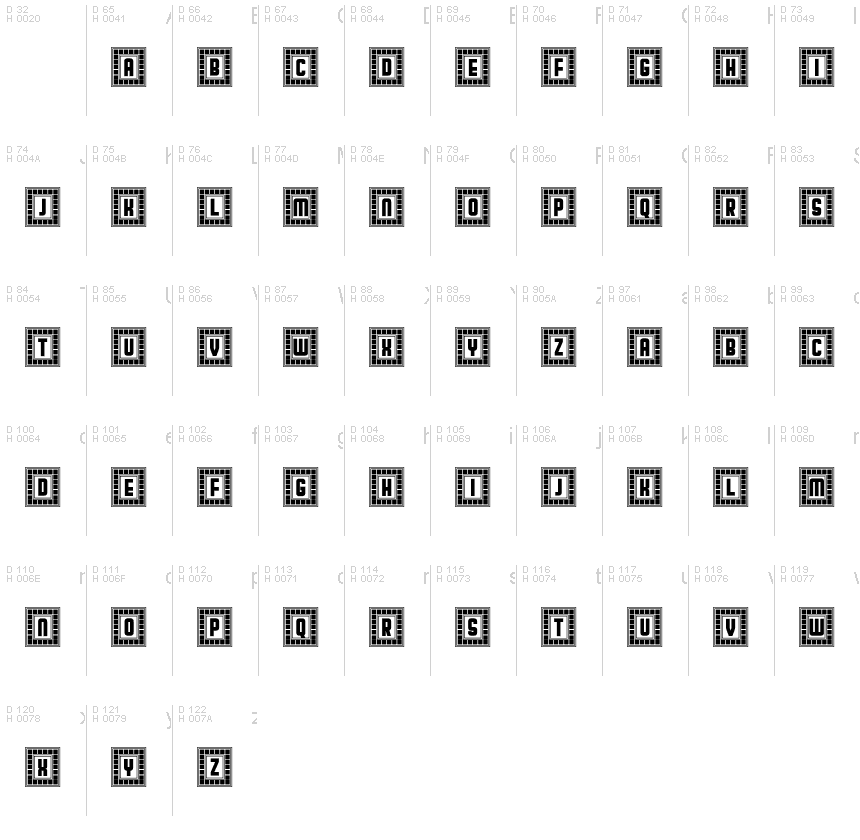
Broadway Capitals Light Negativ Regular
Broadway Capitals Light Negativ is a stunning display font designed by Vladimir Nikolic. This decorative, bold typeface is perfect for creating eye-catching headlines and attention-grabbing titles. The condensed width allows for maximum impact in limited space, making it an ideal choice for posters, billboards, and other large-scale designs. Whether you're working on a vintage-inspired movie poster or a modern music festival flyer, Broadway Capitals Light Negativ is sure to make your project stand out. Its unique style can also add flair to logos and branding materials. Try this bold font family today and see the difference it can make in your designs!
Regular, Light, Light Negativ, Negativ !
Broadway Capitals Light Negativ